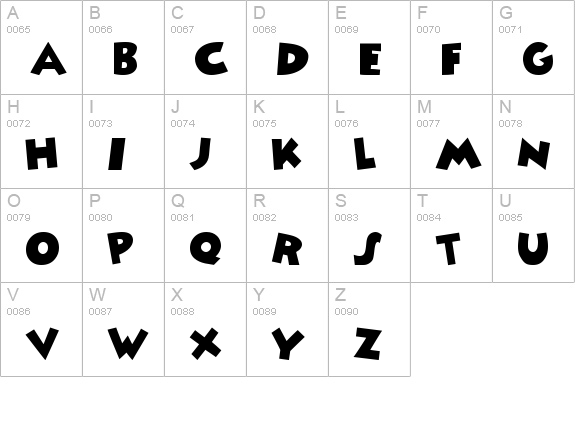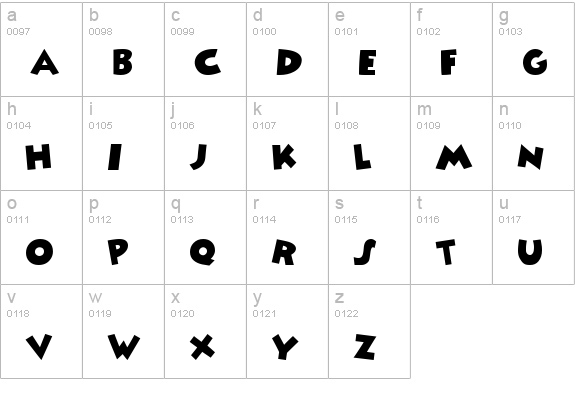
The Disney Minnie font is a delightful and charming typeface inspired by the iconic Minnie Mouse character. With its playful curves and whimsical design, this font captures the essence of fun and magic that Disney is known for. Perfect for adding a touch of Disney magic to your designs, the Disney Minnie font is a must-have for fans of the beloved character. Best of all, the Disney Minnie font is available for free download at FontsMarket.com. So whether you're creating invitations, cards, posters, or any other design project, you can easily access this enchanting font and bring a touch of Disney whimsy to your work. Add a sprinkle of pixie dust to your designs with the Disney Minnie font today!